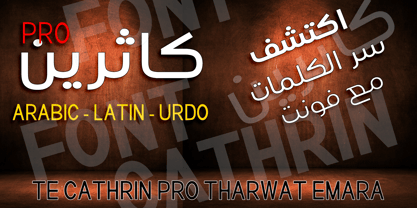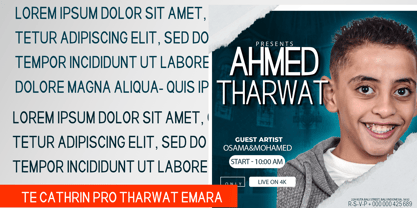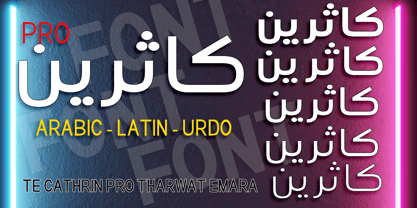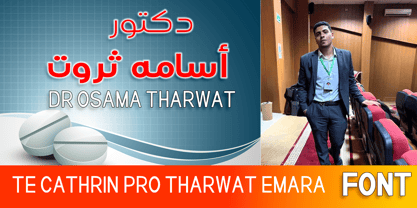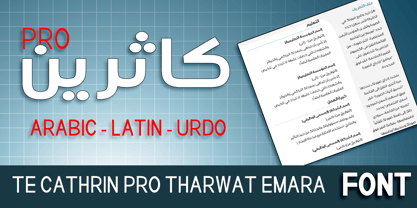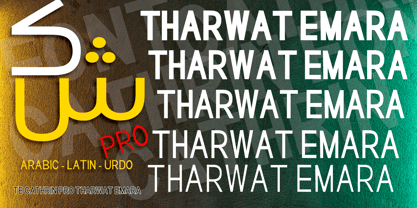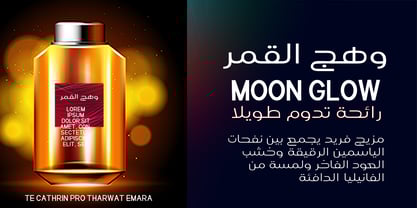
TE Catherine Pro
by Tharwat Emara
The TE Catherine Pro Font Family was designed by Tharwat Mohamed Emara and published by Tharwat Emara. TE Catherine Pro contains 5 styles and family package options. More about this family
TE Cathrin Pro Tharwat Emara* is a distinguished Arabic font crafted by the renowned Egyptian calligrapher Tharwat Mohamed Emara. This font masterfully blends the traditional elegance of Arabic calligraphy with modern design sensibilities, making it highly versatile for a wide range of applications. Characterized by its refined and sophisticated appearance, it reflects the beauty of Arabic script while ensuring clarity and readability. The font supports an extensive array of languages that use the Arabic script, including Arabic, Persian, Urdu, and others, as well as full support for Latin-based languages, making it an ideal choice for multilingual projects that combine Arabic and Latin texts, such as English or other European languages.
The font features graceful, flowing curves and intricate detailing that showcase the calligrapher’s expertise, with a perfect balance of thick and thin strokes, resulting in harmonious and visually appealing text. It includes numerous alternate characters and ligatures for Arabic, providing a natural and seamless text flow, while the Latin characters are designed to complement the Arabic aesthetic, ensuring visual consistency when both scripts are used together. This dual-language support makes TE Cathrin Pro an excellent choice for branding, marketing materials, and websites targeting multicultural audiences.
Ideal for designing titles, logos, posters, books, and digital content such as mobile apps and user interfaces, this font delivers a professional and distinctive look. It offers comprehensive support for Arabic diacritical marks and special characters, as well as extended Latin characters that accommodate various European languages, ensuring accurate representation of multilingual texts. The font is fully compatible with major design software, including Adobe Creative Suite, Microsoft Office, and web design platforms, making it a practical and flexible choice for both professional and amateur designers.
Additionally, the font adapts well to different weights and sizes, allowing its use in large-scale text like headlines or smaller text like body copy, all while maintaining clarity and elegance. The Latin characters are thoughtfully designed to align with the overall aesthetic of the Arabic script, creating a cohesive and unified visual experience. This makes TE Cathrin Pro particularly suitable for projects requiring seamless integration of multiple languages